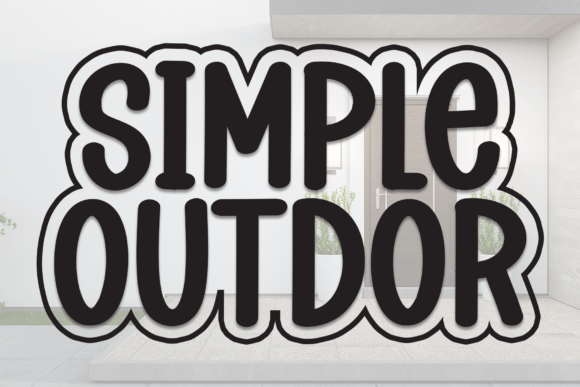
Introducing Simple Outdoor Font: The Perfect Choice for Outdoor-Themed Projects
Are you looking for a font that can add a touch of personality and warmth to your outdoor-themed projects? Look no further than Simple Outdoor Font. This fun and chunky display font is designed to make a statement with its bold yet friendly aesthetic. In this article, we’ll take a closer look at the features and benefits of Simple Outdoor Font and explore how it can be used to elevate your designs.
What is Simple Outdoor Font?
Simple Outdoor Font is a hand-drawn display font that is perfect for outdoor-themed projects, stickers, branding, or signage. The font features thick letterforms and smooth curves that give it a bold yet friendly look. The hand-drawn feel with a playful outline adds charm to craft projects, kids’ designs, and logos.
Key Features of Simple Outdoor Font
- Bold yet friendly aesthetic: Simple Outdoor Font is designed to make a statement with its bold and friendly look.
- Thick letterforms and smooth curves: The font features thick letterforms and smooth curves that give it a unique and attractive look.
- Hand-drawn feel with a playful outline: The hand-drawn feel with a playful outline adds charm to craft projects, kids’ designs, and logos.
- Perfect for outdoor-themed projects: Simple Outdoor Font is designed specifically for outdoor-themed projects, making it the perfect choice for designs that require a bold and friendly aesthetic.
Uses of Simple Outdoor Font
Simple Outdoor Font is a versatile font that can be used for a variety of design projects. Here are some of the most popular uses of the font:
Popular Uses of Simple Outdoor Font
- Outdoor-themed projects: Simple Outdoor Font is perfect for outdoor-themed projects such as camping, hiking, or outdoor gear branding.
- Stickers and labels: The font’s bold and friendly aesthetic makes it perfect for stickers and labels.
- Branding and logos: Simple Outdoor Font can be used to create unique and memorable logos and branding materials.
- Signage and advertising: The font’s bold and eye-catching design makes it perfect for signage and advertising.
- Craft projects and kids’ designs: The font’s playful outline and hand-drawn feel make it perfect for craft projects and kids’ designs.
Benefits of Using Simple Outdoor Font
Simple Outdoor Font offers a range of benefits for designers and businesses. Here are some of the most significant advantages of using the font:
Benefits of Using Simple Outdoor Font
- Unique and memorable designs: Simple Outdoor Font can help you create unique and memorable designs that stand out from the crowd.
- Flexibility and versatility: The font can be used for a wide range of design projects, from outdoor-themed projects to craft projects and kids’ designs.
- Easy to read and understand: The font’s bold and clear design makes it easy to read and understand, even at small sizes.
- Time-saving and cost-effective: Simple Outdoor Font can save you time and money by providing a high-quality font that can be used for multiple projects.
How to Use Simple Outdoor Font
Using Simple Outdoor Font is easy and straightforward. Here are some tips for getting the most out of the font:
Tips for Using Simple Outdoor Font
- Use it for headlines and titles: Simple Outdoor Font is perfect for headlines and titles, where its bold and eye-catching design can make a big impact.
- Experiment with different colors and textures: The font’s bold and friendly aesthetic makes it perfect for experimenting with different colors and textures.
- Pair it with other fonts: Simple Outdoor Font can be paired with other fonts to create unique and interesting combinations.
- Use it for digital and print projects: The font can be used for both digital and print projects, making it a versatile addition to your font library.
Simple Outdoor Font is a fun and chunky display font that is perfect for outdoor-themed projects, stickers, branding, or signage. Its bold yet friendly aesthetic, thick letterforms, and smooth curves make it a unique and memorable font that can add personality and warmth to your designs. With its versatility, flexibility, and ease of use, Simple Outdoor Font is an ideal choice for designers and businesses looking to create high-quality designs that stand out from the crowd.